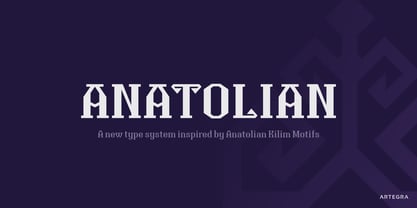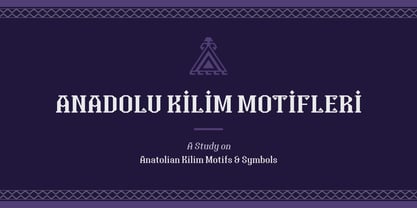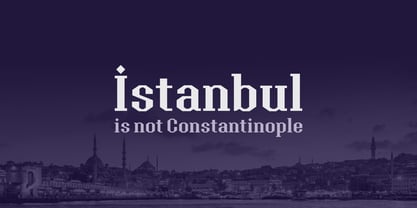
Anatolian
by Artegra
Anatolian typeface was designed with inspiration from the traditional Anatolian kilim motifs and symbols that characterize Turkish culture. Motifs and design elements that has been used for centuries on carpets now found place in a typeface as serifs. It was exciting to see how these old design elements would turn into a modern font that would be applicable for modern designs.
Designers: Ceyhun Birinci
Publisher: Artegra
Foundry: Artegra
Design Owner: Artegra